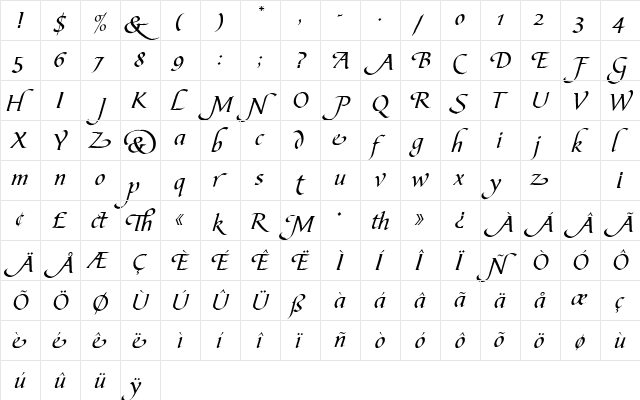
BibleScriptEF Alternates Font Preview
BibleScriptEF Alternates
Design Context for BibleScriptEF Typeface
BibleScriptEF brings a calligraphic fluidity to the page — its connecting strokes and expressive curves give it an unmistakably human quality.
Font Pairing: Combine BibleScriptEF with a simple geometric sans for maximum contrast — the tension between flowing curves and clean structure is a classic typographic pairing.
Pro Tip: Pair BibleScriptEF with a clean sans-serif for supporting text. The contrast between fluid script and geometric structure creates an elegant typographic hierarchy.